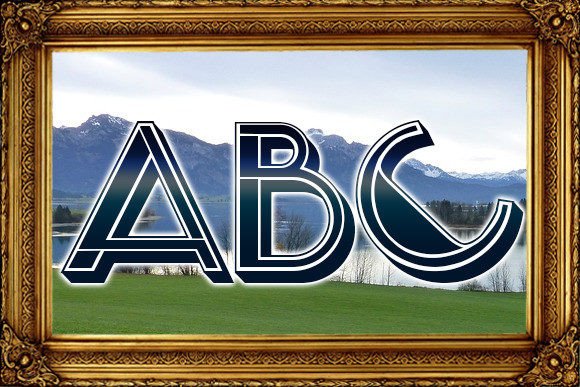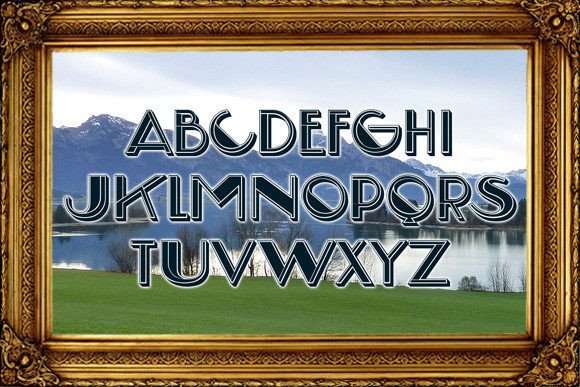
Introduction to Louvre Font
Remember that moment when you’re brainstorming ideas for your creative project, and you finally stumble upon the perfect font to bring your concept to life? It’s like the missing puzzle piece has fallen into place, and your design starts to take shape in a whole new way. For many designers, that moment is often triggered by discovering a unique and captivating font.
Enter the Louvre Font, a stunning retro typeface that’s sure to elevate your designs and leave a lasting impression. This high-quality font is a valuable resource for designers, offering a distinctive look that’s perfect for posters, flyers, and even t-shirts. With its transparent background and versatility, the Louvre Font is an ideal choice for any creative project.
Whether you’re a seasoned designer or just starting out, the Louvre Font is a must-have addition to your design arsenal. And the best part? It’s available for free download, making it an accessible resource for designers of all levels. In this article, we’ll delve into the world of the Louvre Font and explore why it’s become a go-to choice for designers looking to add a touch of retro charm to their work.
Key Features of Louvre Font
- High-quality design resource ideal for creative projects, with a unique and elegant aesthetic.
- Features a transparent background, allowing for versatility in design applications and easy layering.
- Designed with precision and care, offering a high level of detail and sophistication.
- Perfect for use in graphic design, digital art, and other creative pursuits where a high-quality font is essential.
- Can be easily scaled and manipulated to fit your specific design requirements, making it a valuable design resource.
Honest Review: Louvre Font
I recently stumbled upon the Louvre Font, and I must say, it’s been a game-changer for my creative projects. As a designer, I’m always on the lookout for high-quality design resources that can elevate my work. The Louvre Font is a free download that has exceeded my expectations.
Here’s what works well:
- ✨ Beautifully crafted lettering with a unique flair
- ✨ Perfect for creating eye-catching headlines and titles
- ✨ Compatible with a wide range of design applications
- ⚠️ Limited character set (only supports basic Latin alphabet)
- ⚠️ Not suitable for text-heavy content
Overall, I’m thoroughly impressed with the Louvre Font. Its high-quality design and transparent background make it an ideal choice for creative projects. If you’re looking for a stylish font to add some flair to your work, I highly recommend giving the Louvre Font a try. Just be aware of its limitations, and you’ll be good to go.
Louvre Font
The Louvre Font is a high-quality, free download design resource ideal for any creative project. With its transparent background, it’s perfect for designers looking for a versatile and stylish font.
Tips for Getting the Most Out of Louvre Font
For the best results, use the Louvre Font in a design project that requires a high level of sophistication and style. Consider pairing it with other high-quality design resources to create a cohesive and visually appealing design.
The Louvre Font is ideal for a variety of creative projects, including:
- Marketing materials, such as brochures and flyers.
- Branding and logo design.
- Editorial design, such as magazines and newspapers.